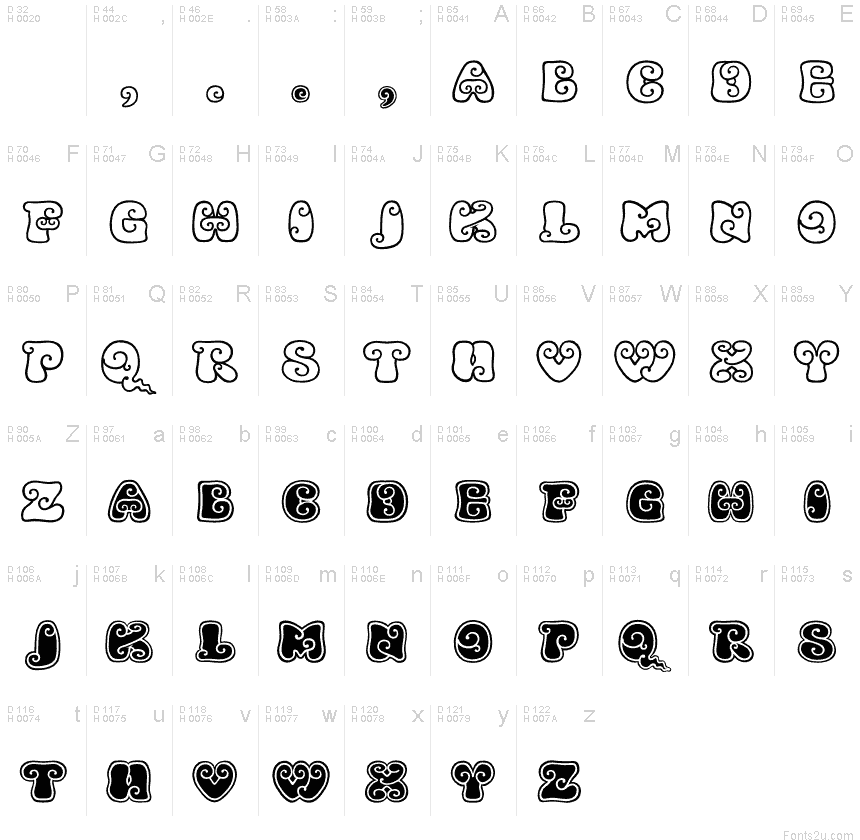
Kingthings Kurllie by Kevin King is a free curly cartoon display font with broad, inflated letters and a lively 1970s flavor. Tight curls and heart-like details turn the lettering into ornament without obscuring its basic forms.
It can create a cheerful illustrated title for children's entertainment or retro events. The rounded shapes also suit candy packaging and playful merchandise, where the letters become part of the decoration. Posters are its strongest setting, combining wording and artwork in one exuberant treatment.